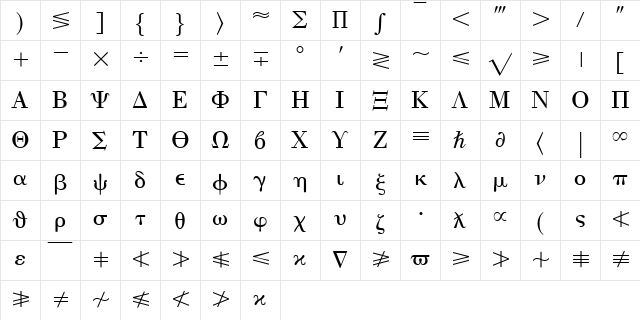
UniversalGreekwithMathPi169 Roman
Design Context for UniversalGreekwithMathPi169
UniversalGreekwithMathPi169 is a composed and adaptable typeface that performs quietly and consistently across a wide range of design contexts.